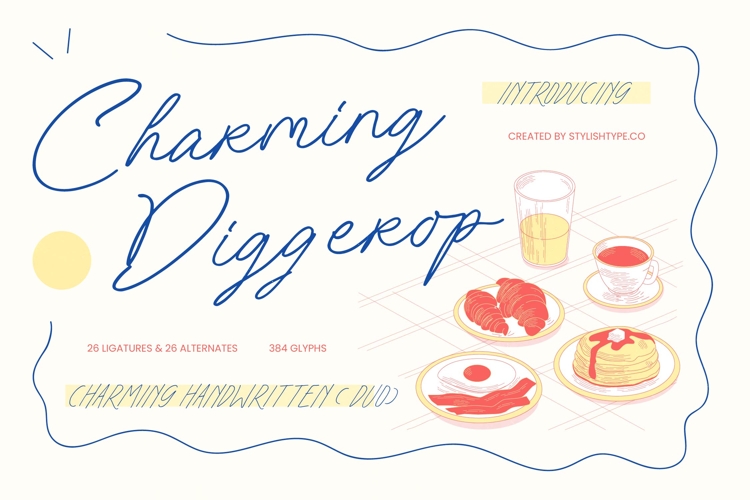
harming Diggerop - Handwritten Font
Charming Diggerop - Handwritten Font
Elevate your creative vision with a typeface that embodies effortless elegance. Charming Diggerop - Handwritten Font is a masterclass in modern script design, offering a fluid and organic aesthetic that mimics authentic penmanship. Its graceful strokes and rhythmic flow provide a touch that is both sophisticated and approachable, making it an essential tool for designers seeking to infuse their work with a unique, human-centric character.
Experience unparalleled creative flexibility through a rich library of specialized glyphs. This dynamic typeface includes 26 ligatures and 26 alternates, totaling 384 glyphs that ensure every word feels custom-made. By utilizing Charming Diggerop - Handwritten Font, you gain access to a versatile design asset that balances readability with artistic flair. Whether you are crafting a high-end logo or an intimate wedding invitation, its consistent weight and balanced spacing guarantee professional results.